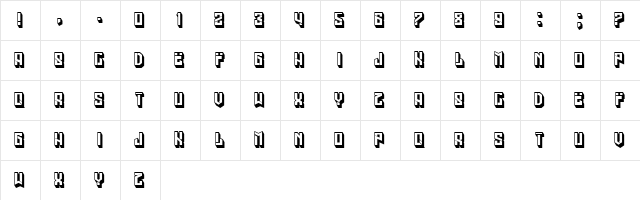
Megalomania Hollow Regular
Design Context for Megalomania Hollow Typeface
Megalomania Hollow is a composed and adaptable typeface that performs quietly and consistently across a wide range of design contexts.